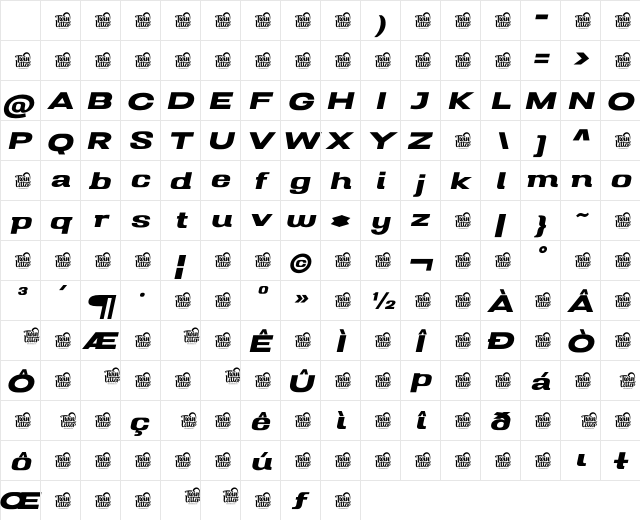
Complete Mugio Slant Bold glyph index. Displaying only characters natively supported by Mugio Slant Bold font.
Mugio Slant is a composed and adaptable typeface that performs quietly and consistently across a wide range of design contexts. Its bold stroke weight gives it real presence on the page.